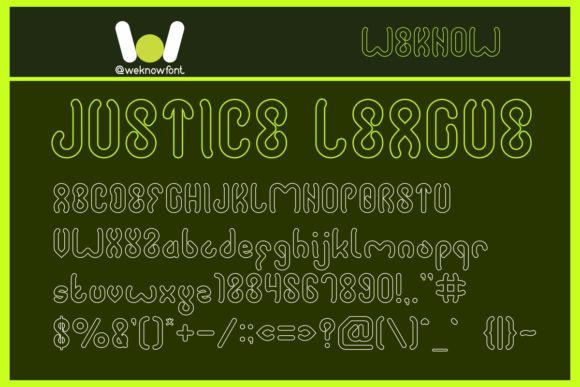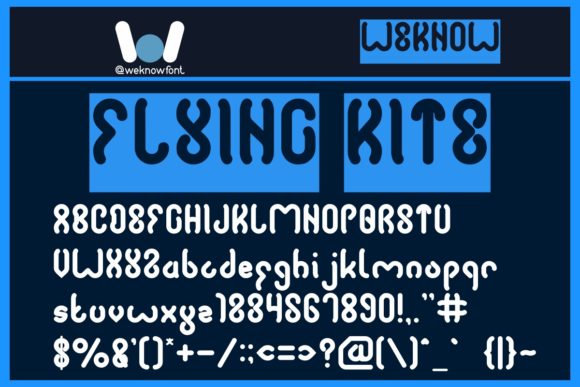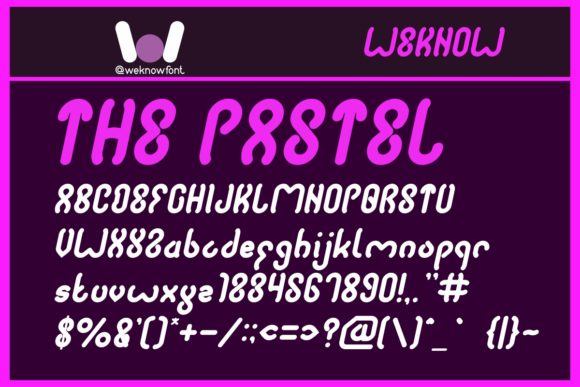
Introduction to Just a Friend Font
Have you ever stared at a blank canvas, struggling to find the perfect font to bring your creative project to life? We’ve all been there. It’s that moment of frustration when you know exactly what you want to see, but can’t quite put your finger on the right design resource. That’s where the Just a Friend Font comes in – a game-changing, modern display font that’s about to revolutionize the way you approach your next design project.
As a designer, you understand the importance of having access to high-quality fonts that can elevate your work and set it apart from the rest. The Just a Friend Font is more than just a pretty face – it’s a versatile design tool that’s perfect for everything from product packaging to logo design, and even t-shirt labels. With its unique style and transparent background, this font is sure to be a valuable addition to your design arsenal.
Key Features of Just a Friend Font
- Unique Hand-Drawn Design: The Just a Friend Font features a distinctive hand-drawn style, perfect for creative projects that require a personal touch.
- High-Quality Graphics: This font includes high-resolution graphics, making it suitable for both print and digital applications.
- Transparent Background: The transparent background of the Just a Friend Font allows for seamless integration with other design elements, making it an ideal design resource.
- Perfect for Creative Projects: The Just a Friend Font is an excellent design resource for creative projects, including invitations, posters, and social media graphics.
Honest Review: Just a Friend Font
I recently had the chance to work with the Just a Friend Font, and I must say, it’s a great addition to my design resource library. The font is perfect for any creative project that requires a unique and playful touch.
- ✨ High-quality design that stands out from the crowd
- ✨ Perfect for use on a transparent background, allowing the text to take center stage
- ✨ The font is incredibly versatile and can be used for a variety of creative projects
- ⚠️ The font may not be suitable for formal or professional projects
- ⚠️ Some users may find the font a bit too playful or whimsical
Overall, I’m really impressed with the Just a Friend Font. It’s a great free download that’s perfect for designers looking to add a bit of personality to their projects. I would definitely recommend it to anyone looking for a high-quality design resource.
The Just a Friend Font is perfect for creative projects, such as social media graphics, flyers, and presentations. It’s also great for use in logo design, branding, and packaging design. With its unique style and transparent background, it’s a great design resource to have in your toolkit.